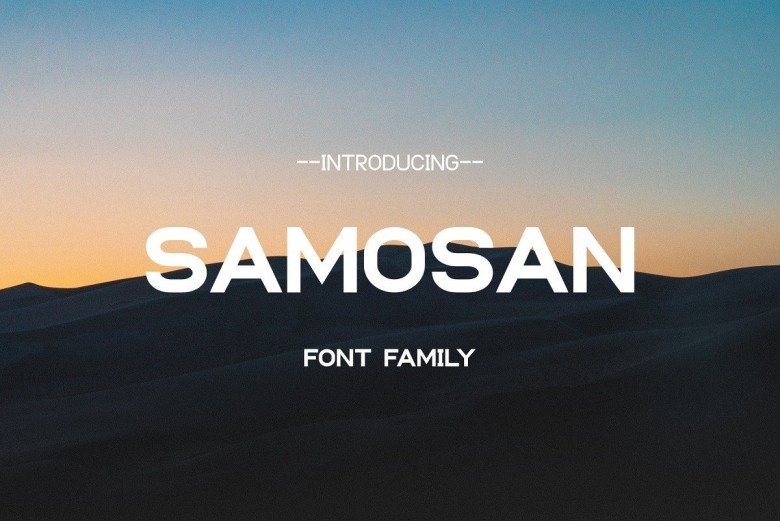
Samosan Sans Serif Font
Samosan Font is a sans serif typeface with butt cap give off a relax, sweet and clean. Its design based on circle and line geometric shape with space between each letter which can be use as a minimal style header display or can be easily read as a text content.